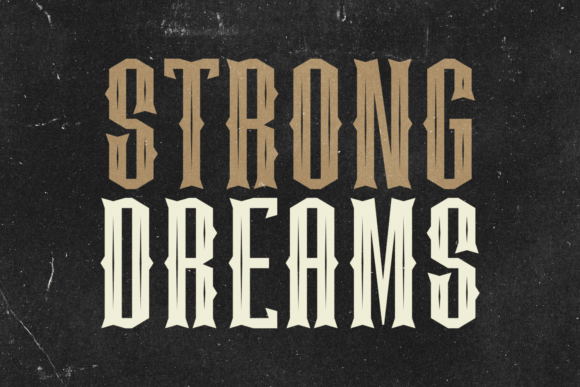
Introducing Strong Dreams Font, a breathtaking vintage-style blackletter font crafted by the talented team at Creative Fabrica Fonts. Get ready to elevate your typography game with this remarkable typeface that is sure to captivate and inspire.
With its tall and meticulously designed characters, Strong Dreams Font offers a truly unique and eye-catching aesthetic. Each letter exudes a sense of elegance and sophistication, making it the perfect choice for those seeking to make a bold and memorable statement.
Whether you're working on a poster, branding project, logo design, banner, sign, or title, Strong Dreams Font will effortlessly enhance your creations. Its versatility allows it to seamlessly adapt to any context, adding a touch of charm and personality to your work.
The rich history and timeless appeal of blackletter fonts make Strong Dreams Font a must-have for any designer or creative professional. This font evokes a sense of nostalgia, transporting your audience to a bygone era while still maintaining a contemporary edge.
But Strong Dreams Font isn't just visually stunning - it also offers exceptional functionality. Its legibility ensures that your message is conveyed with clarity and impact, ensuring that your audience doesn't just admire your design, but also engages with it.
Incorporating Strong Dreams Font into your projects will set you apart from the competition and leave a lasting impression on your audience. Its distinctive style and meticulous craftsmanship guarantee that your work will stand out in a sea of mediocrity.